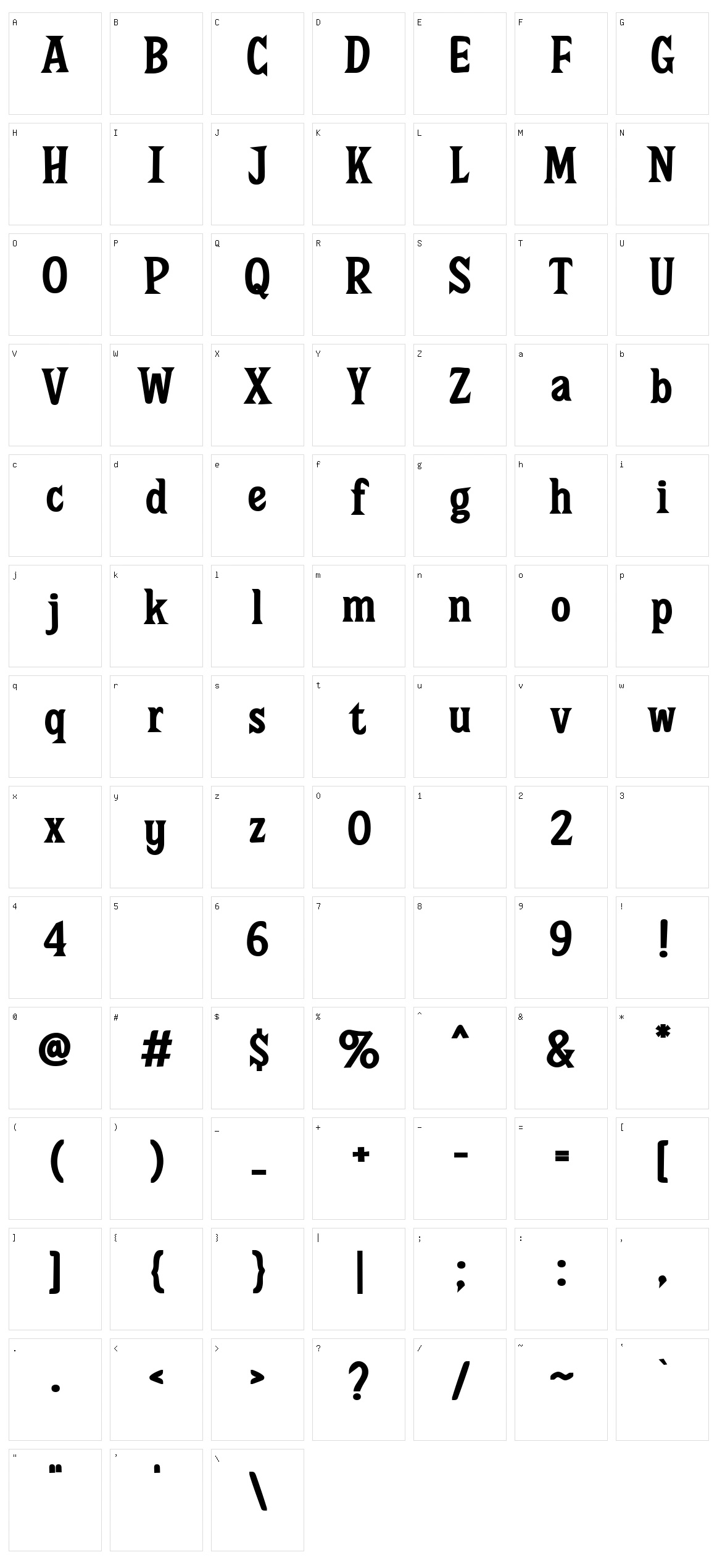
Super Gallery: Where Playful Meets Sharp
Super Gallery is a font that bursts with personality, perfect for adding a touch of fun and whimsy to your designs.